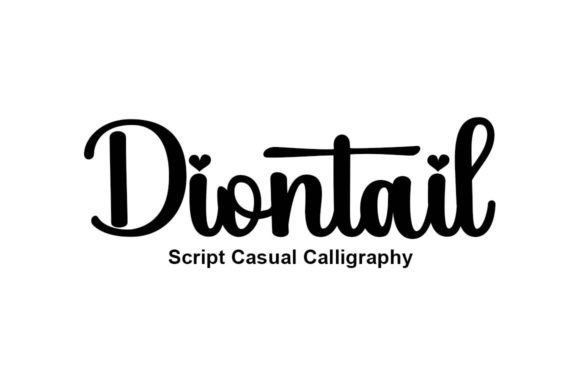
Behold, the exquisite Diontail font, a mesmerizing script that evokes elegance and charm. Its beguiling curves and flourishes will captivate your audience, transforming your creative projects into captivating masterpieces. Crafted by the talented genesislabstudio, Diontail is not just a font; it's an art form.
Immerse yourself in the beauty of Diontail's handwritten style. Each letter, meticulously designed with a unique and beautiful touch, will add a personal and heartfelt charm to your designs. Whether you're creating eye-catching logos, designing sophisticated branding, or expressing yourself through heartfelt quotes, Diontail will elevate your work to new heights of visual appeal.
Unleash your creativity with Diontail's versatility. Its adaptability shines across a wide spectrum of projects, ranging from digital designs to physical art. Use Diontail to create stunning social media posts that demand attention, captivating website headers that leave a lasting impression, or personalized invitations that convey heartfelt messages. The possibilities are endless.
With Diontail, you'll discover a font that not only enhances your designs but also sparks emotions. Its intricate details and flowing lines evoke a sense of nostalgia, romance, and timeless beauty. Whether you're designing for a special occasion, crafting personal notes, or simply seeking a font that adds a touch of elegance, Diontail will captivate your audience and leave them spellbound.
Don't settle for ordinary fonts that blend into the background. Choose Diontail, the font that dares to stand out, to enchant, and to inspire. Embark on a creative journey where your designs come alive with grace and sophistication.